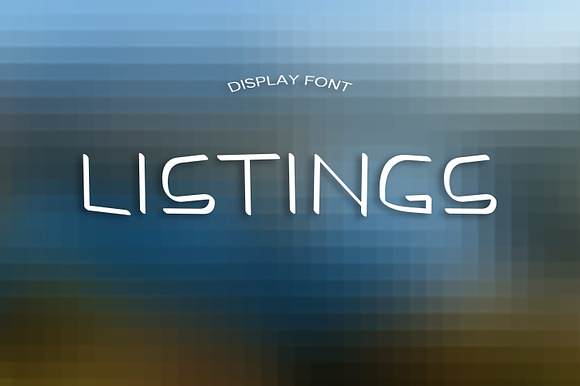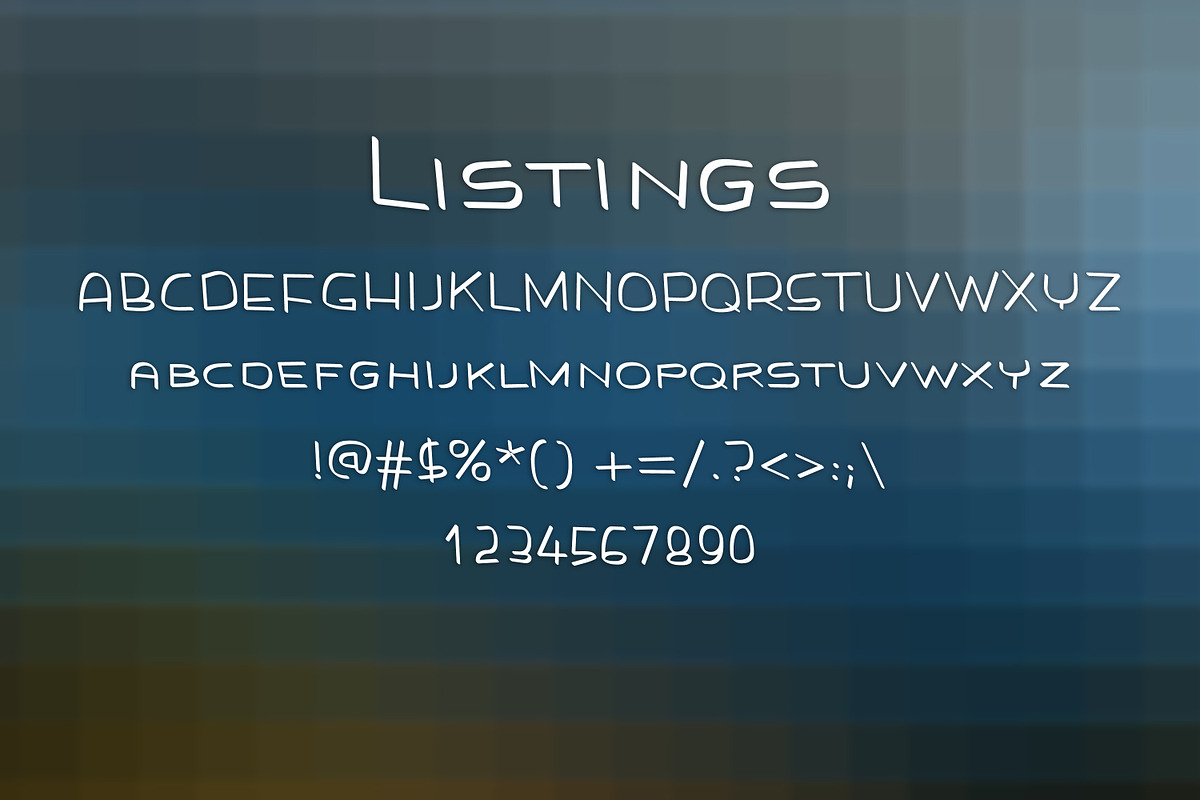
LISTINGS font
- Listings regular
Why LISTINGS font is worth a look
LISTINGS font by DmDesignsStoreArt fits naturally into Branding, posters, packaging, typography.